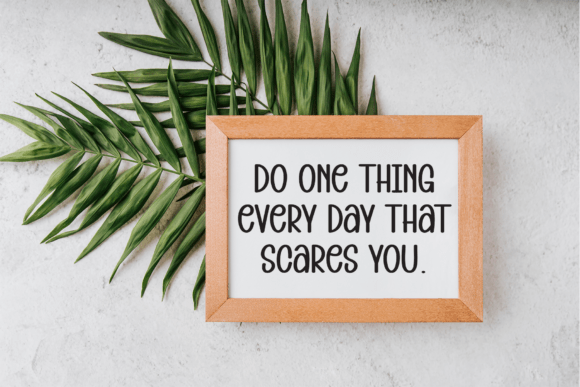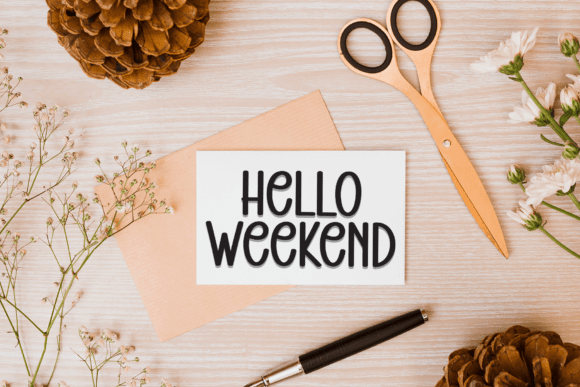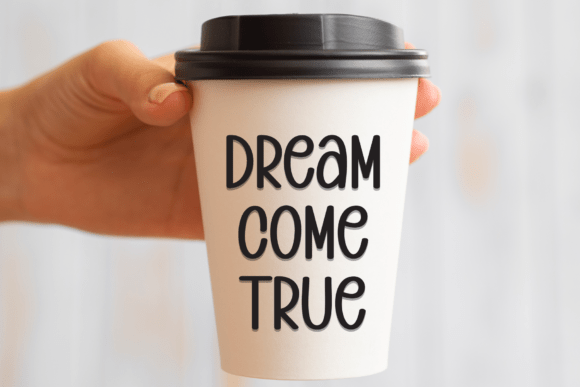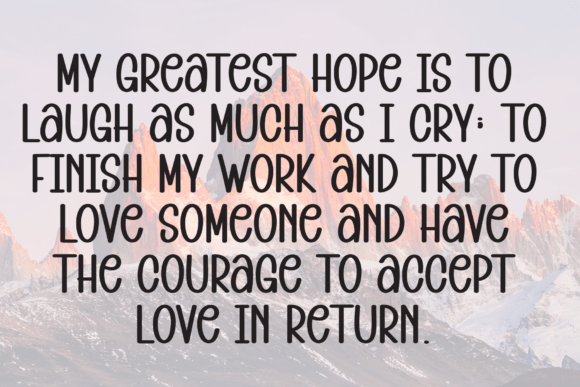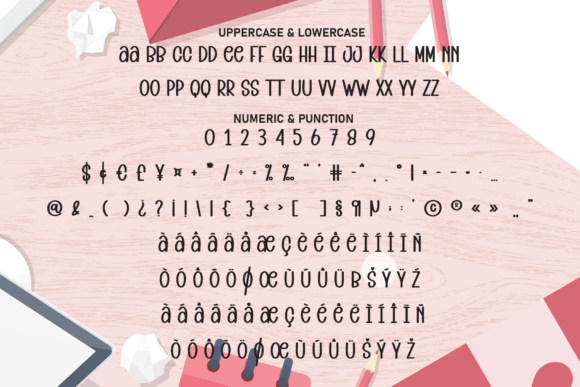
Introducing the Designer Valentines Font: A Charming Handwritten Display Font
Are you looking for a font that exudes sweetness and friendliness? Do you want to add a touch of playfulness to your designs? Look no further than the Designer Valentines Font, a beautiful handwritten display font that’s perfect for crafting wedding invitations, creating personalized cards, and more.
The Perfect Choice for Designers and Crafters
The Designer Valentines Font is a versatile and charming font that’s designed to delight every reader. Its adorable and playful character makes it the perfect choice for designers and crafters who want to add a sprinkle of fun to their designs. Whether you’re creating wedding invitations, birthday cards, or social media graphics, this font is sure to impress.
What Sets the Designer Valentines Font Apart
So, what makes the Designer Valentines Font so special? Here are just a few features that set it apart:
- Handwritten display font: The Designer Valentines Font is a beautiful handwritten font that’s perfect for adding a personal touch to your designs.
- Sweet and friendly vibe: This font exudes a sweet and friendly vibe that’s perfect for Valentine’s Day, weddings, and other celebrations.
- Playful character: The Designer Valentines Font has a playful character that’s sure to add a touch of whimsy to your designs.
- Inviting appeal: This font has an inviting appeal that’s perfect for creating designs that make readers feel welcome and included.
Uses for the Designer Valentines Font
The Designer Valentines Font is a versatile font that can be used for a wide range of design projects. Here are just a few ideas to get you started:
- Wedding invitations: The Designer Valentines Font is perfect for creating beautiful and romantic wedding invitations.
- Personalized cards: This font is great for creating personalized cards for birthdays, holidays, and other special occasions.
- Social media graphics: The Designer Valentines Font is perfect for adding a touch of personality to your social media graphics.
- Party decorations: This font can be used to create fun and playful party decorations, such as banners and garlands.
Tips for Using the Designer Valentines Font
Here are a few tips for using the Designer Valentines Font in your designs:
- Pair with other fonts: The Designer Valentines Font pairs well with other fonts, such as serif and sans-serif fonts.
- Use in combination with images: This font looks great in combination with images, such as photos and illustrations.
- Experiment with colors: The Designer Valentines Font looks great in a variety of colors, so don’t be afraid to experiment and find the perfect hue for your design.
The Designer Valentines Font is a charming handwritten display font that’s perfect for designers and crafters who want to add a touch of sweetness and friendliness to their designs. With its playful character and inviting appeal, this font is sure to delight every reader. Whether you’re creating wedding invitations, personalized cards, or social media graphics, the Designer Valentines Font is the perfect choice.